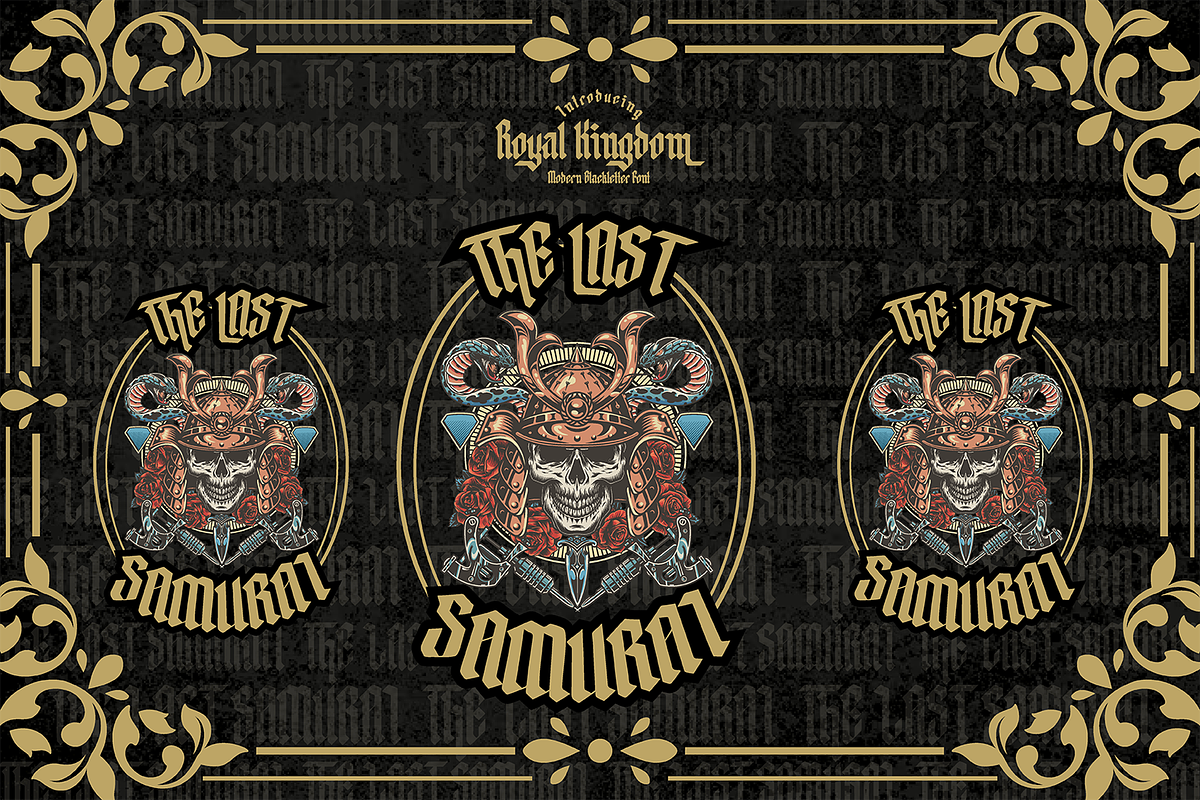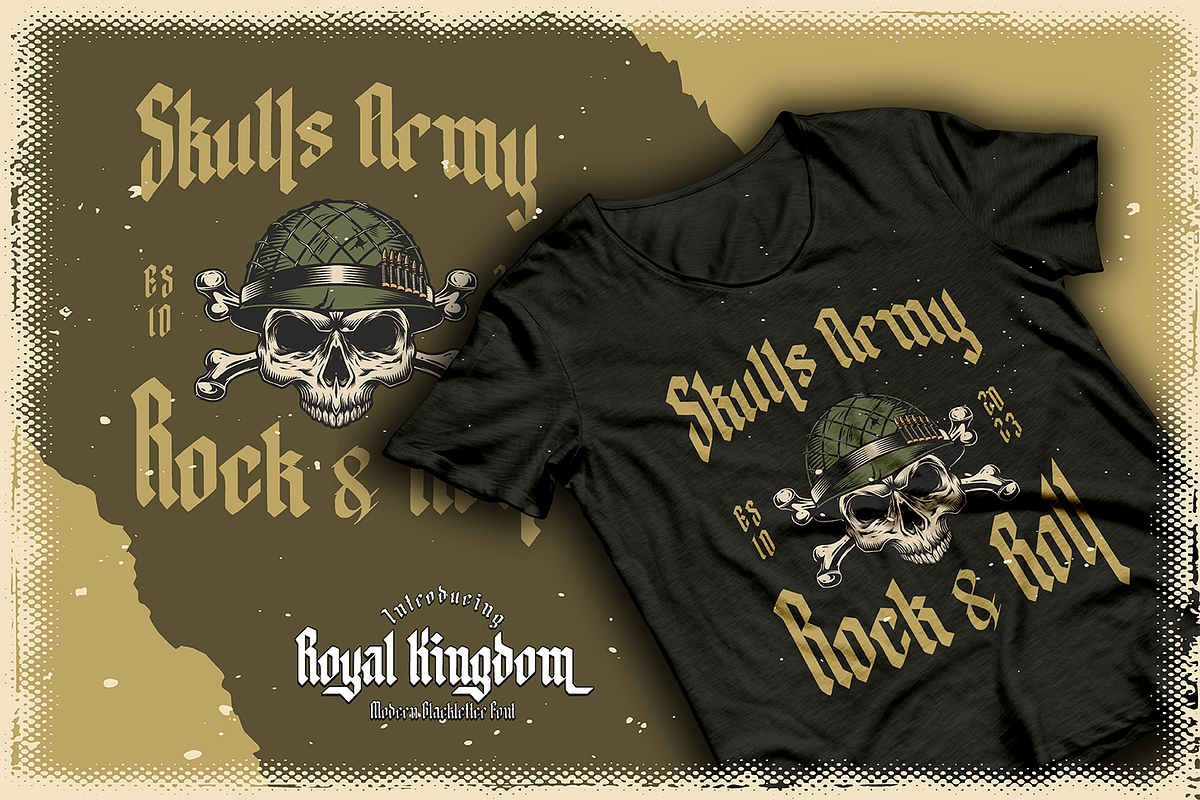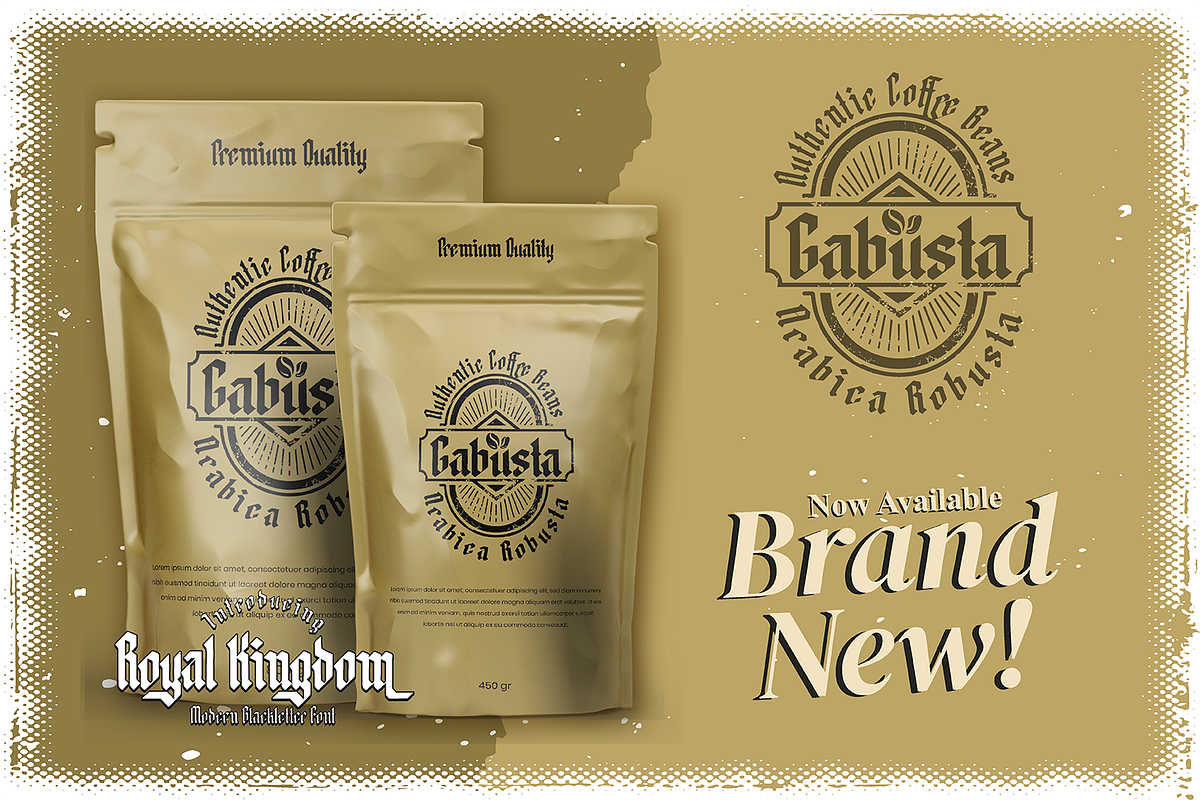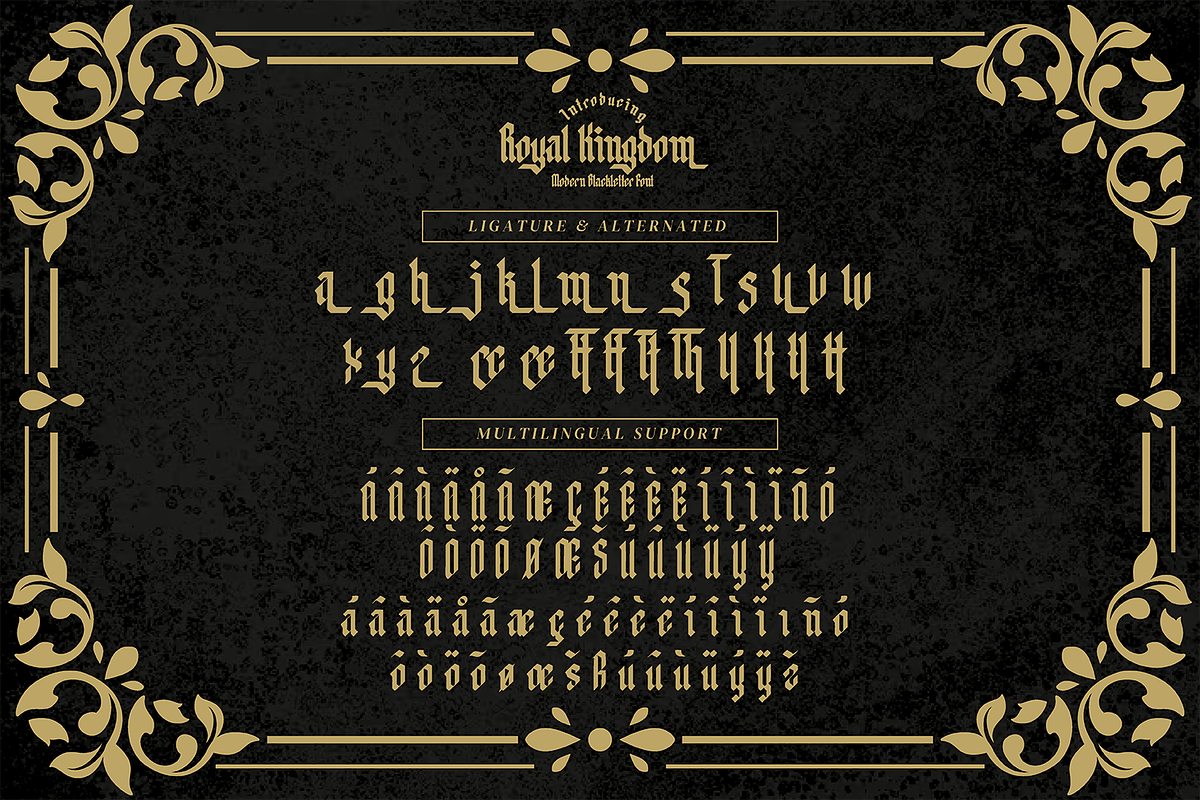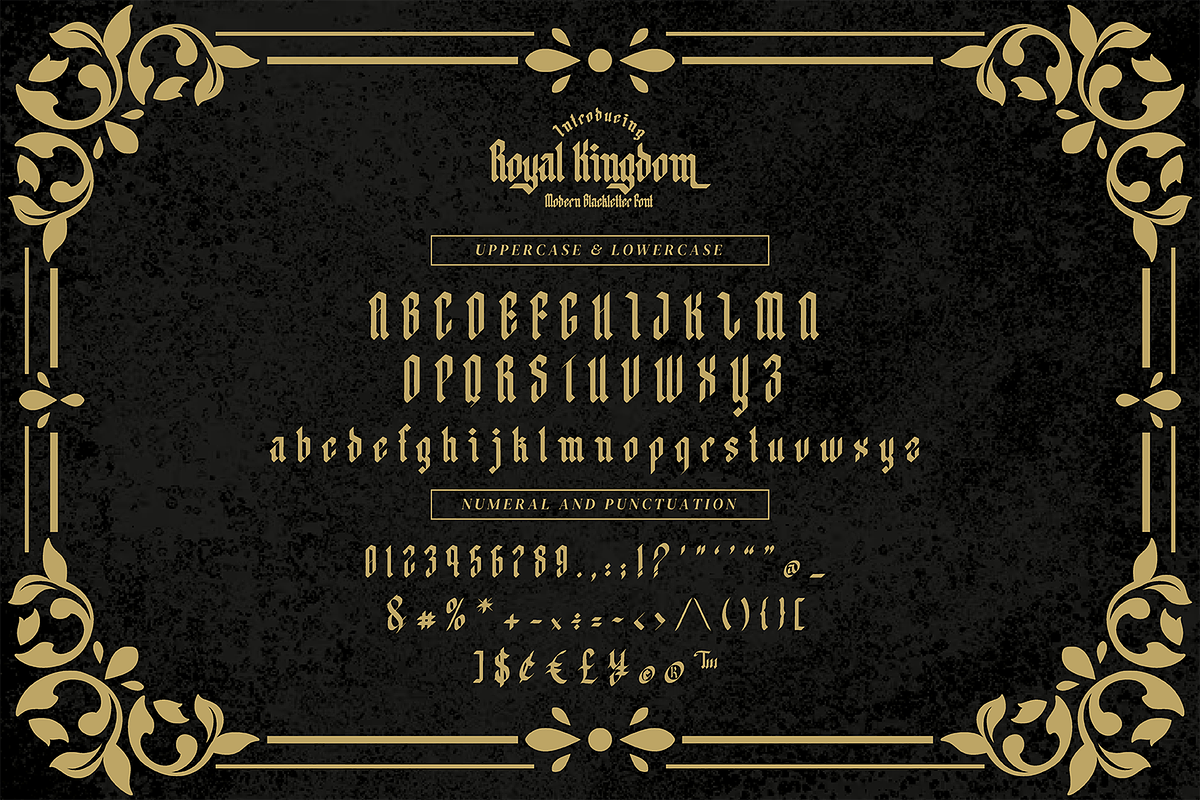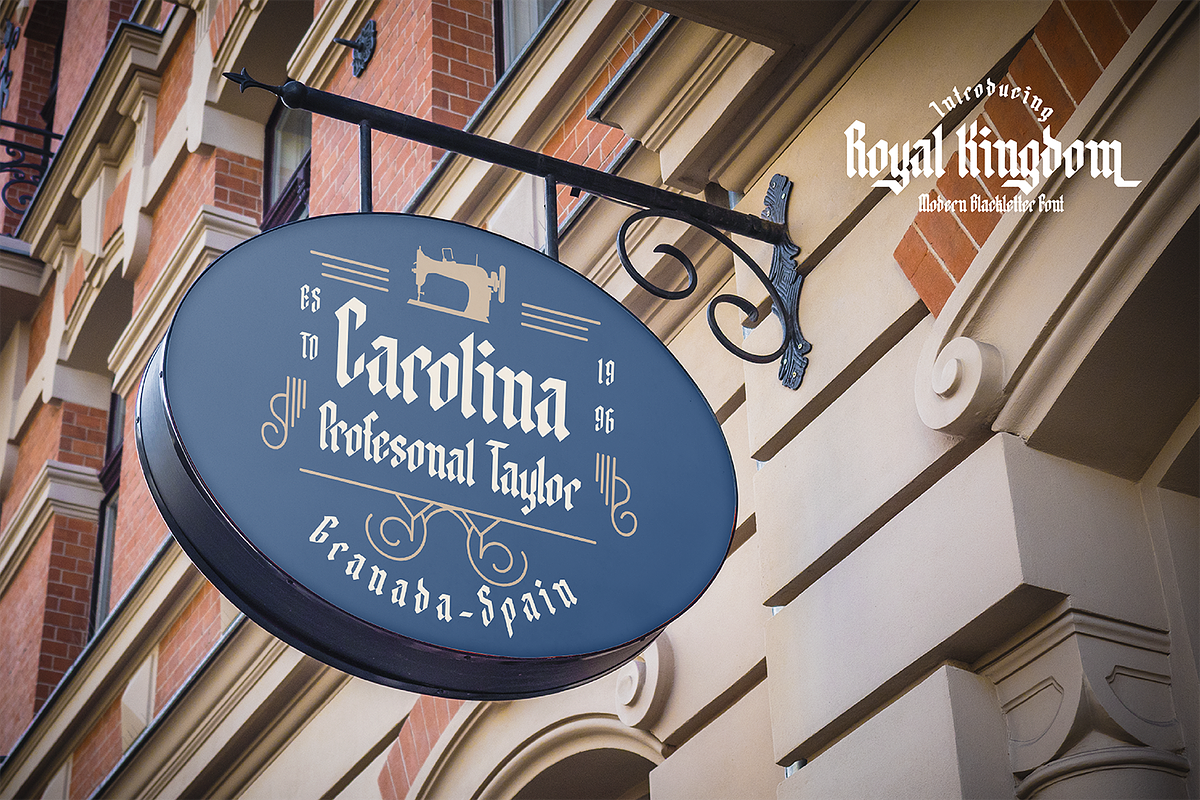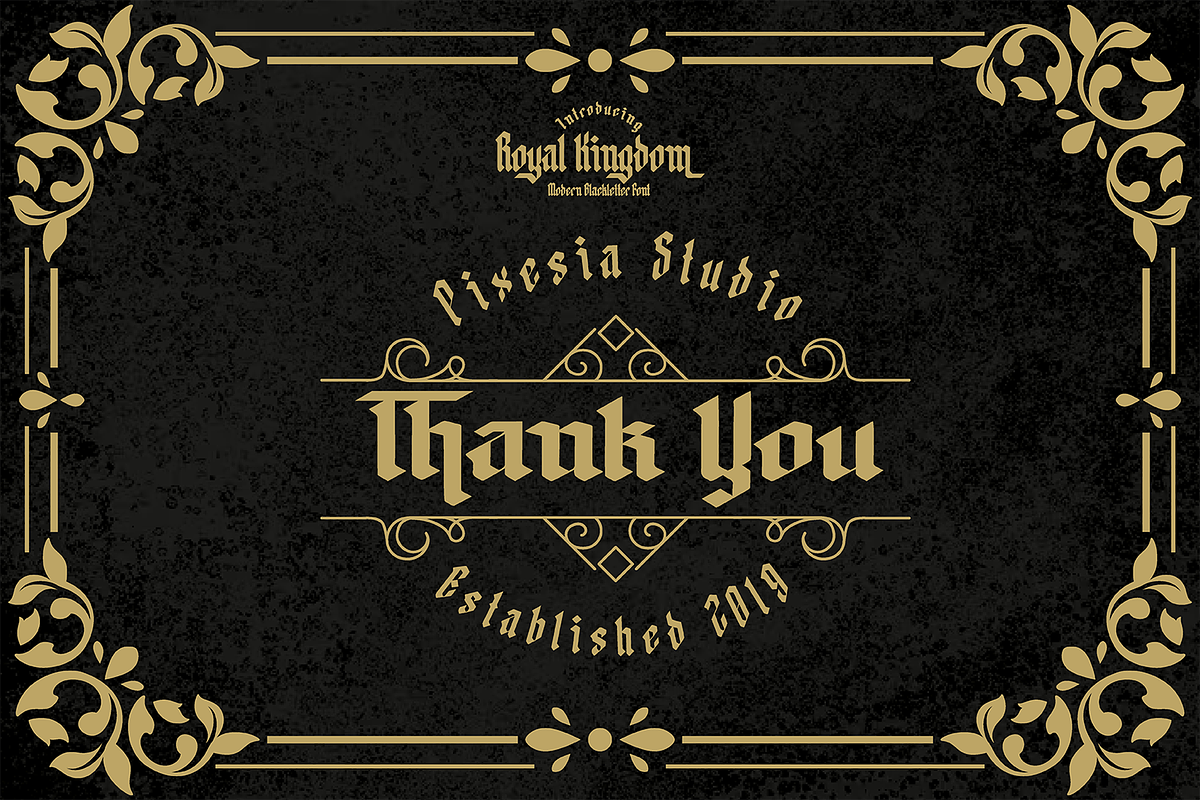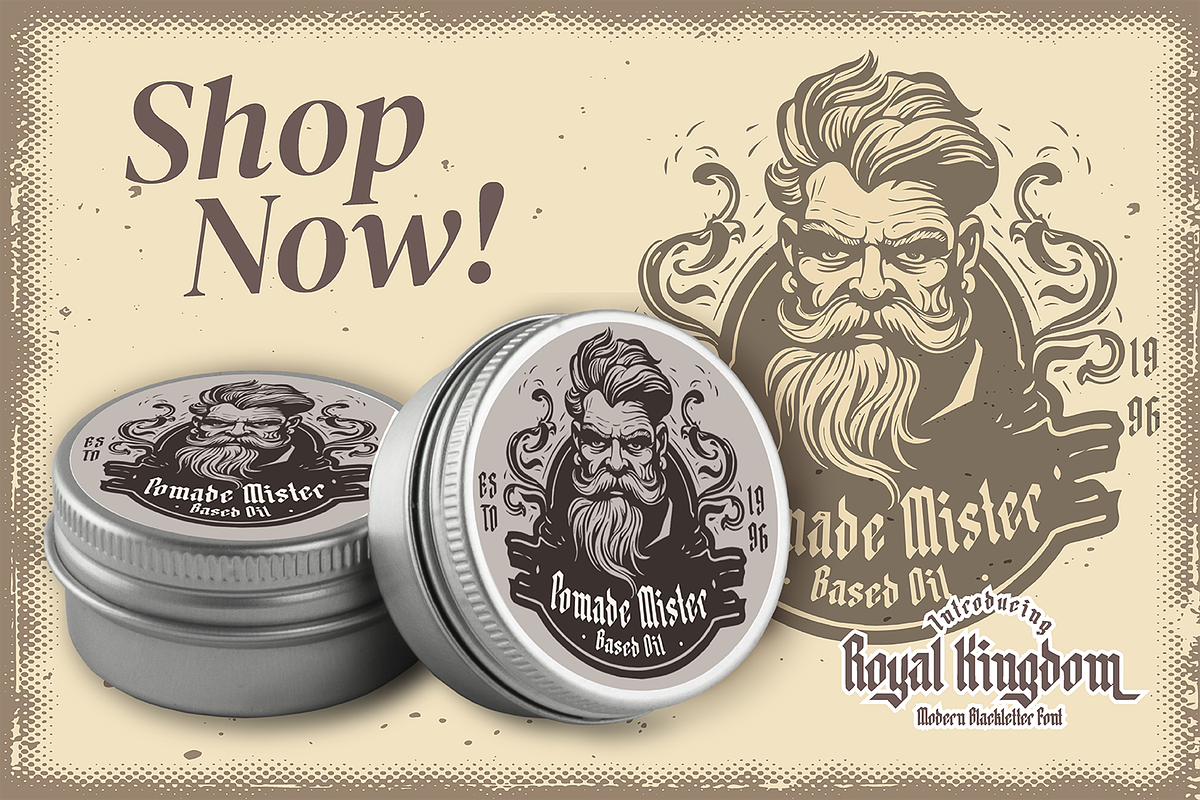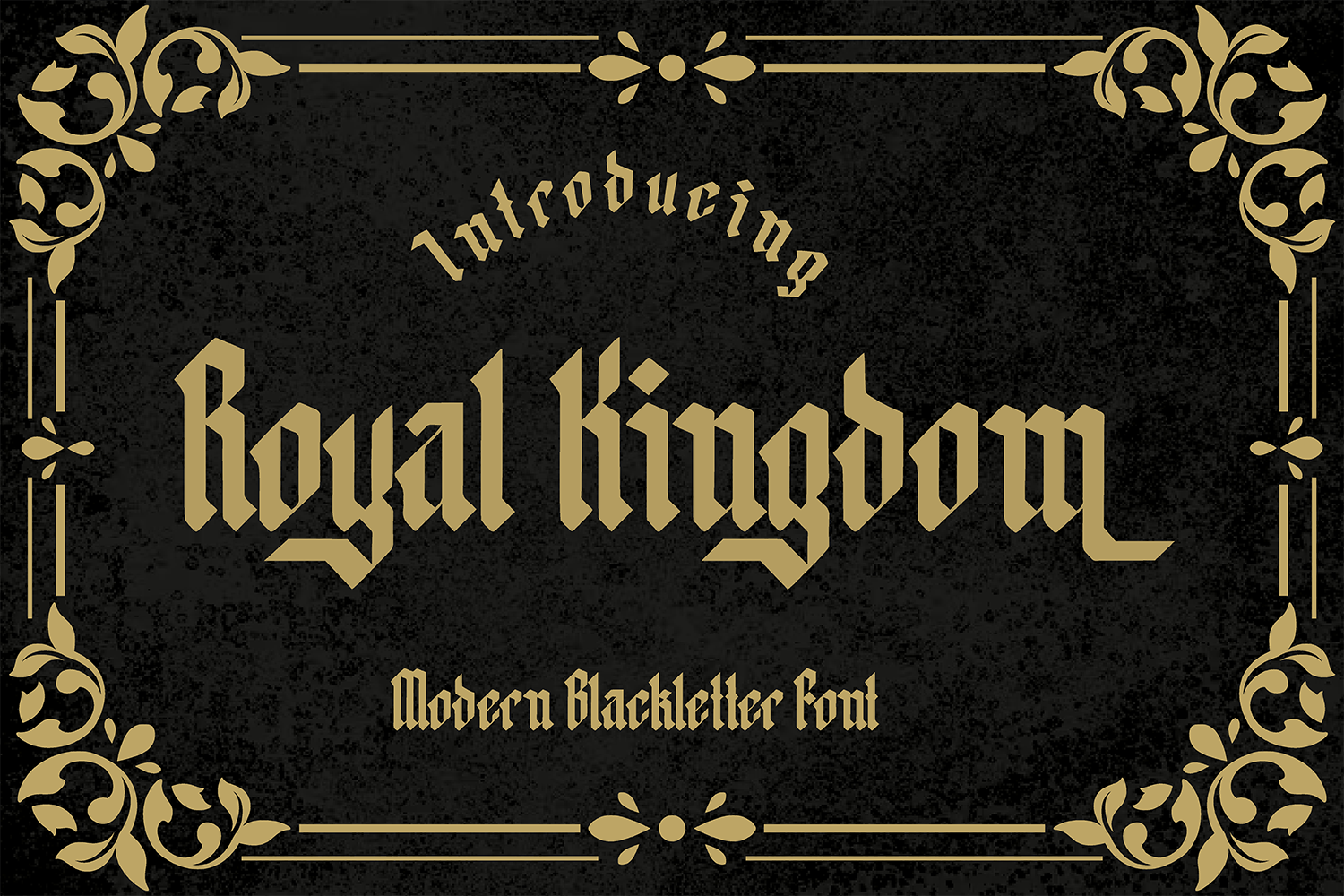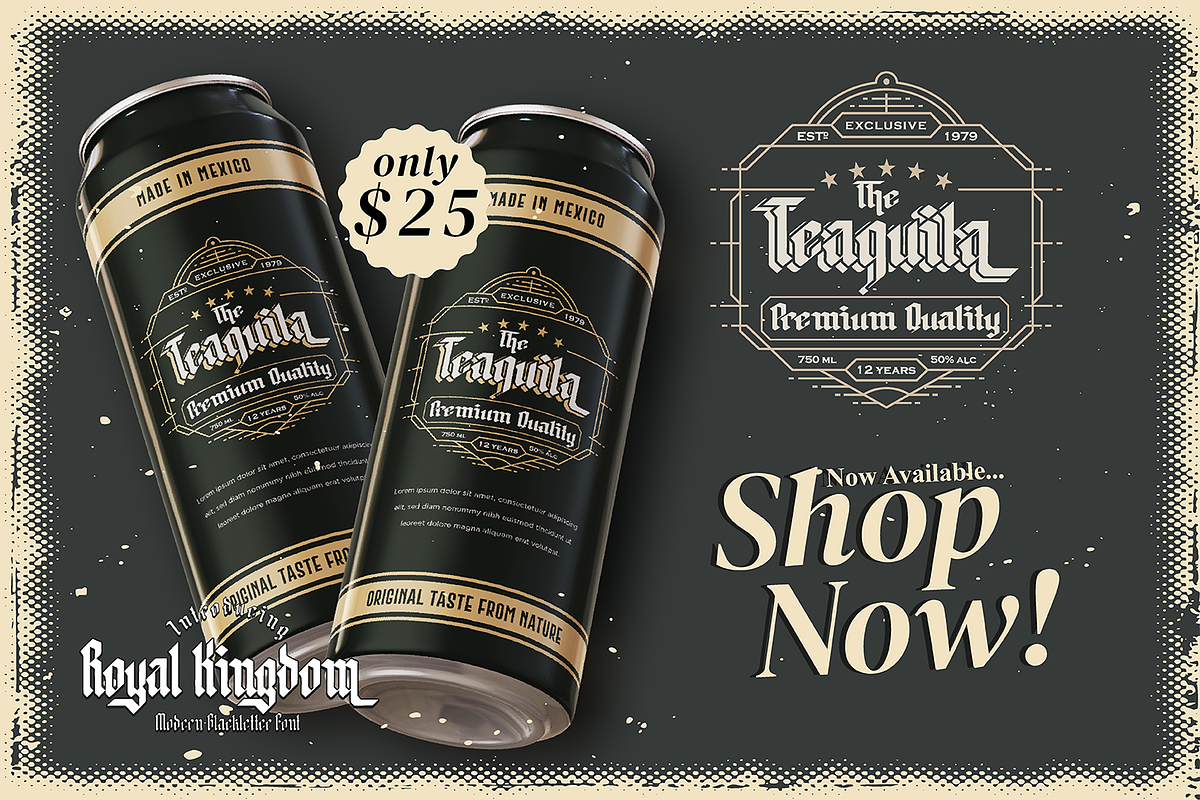
Royal Kingdom - Blackletter Font
Introducing Royal Kingdom - Modern Blackletter Font
Royal Kingdom is a modern blackletter font that elegantly blends contemporary design elements with the essence of Old English Gothic scriptures.
Royal Kingdom is perfectly suited for branding projects, logos, social media posts, advertisements, product packaging, labels, photography, watermarks, stationery, and any creative project seeking a touch of modern blackletter elegance.